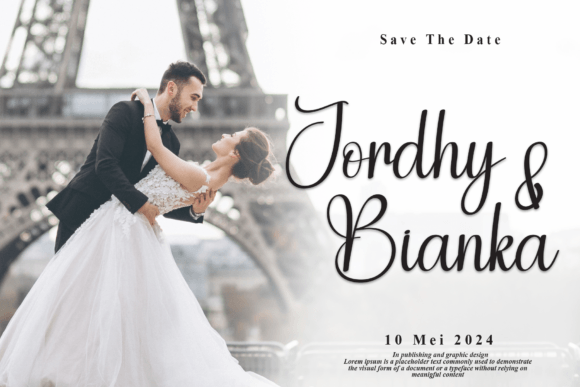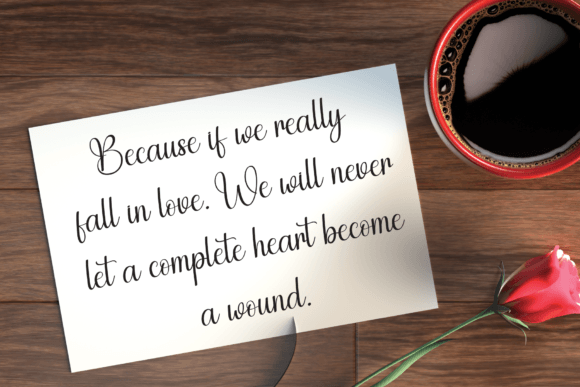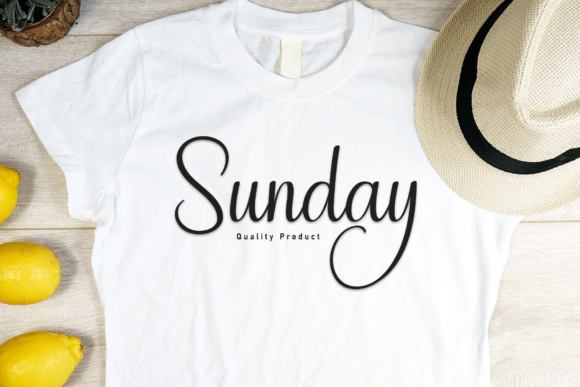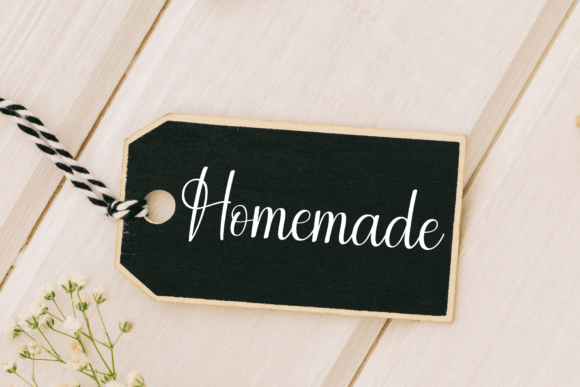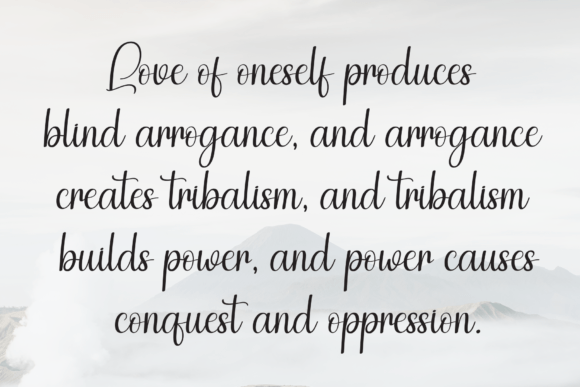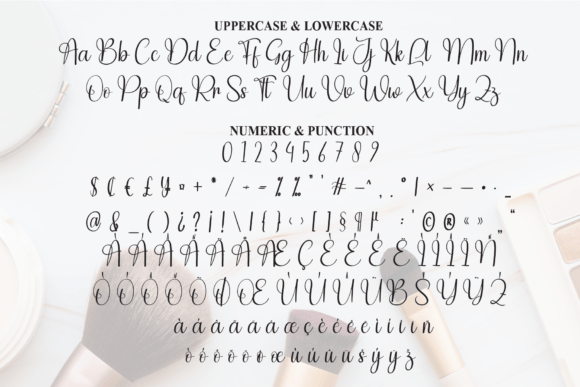
Introducing Brush Beauty Font: The Ultimate Companion for Whimsical Creativity
Are you a designer, crafter, or creative enthusiast looking for a font that can add a touch of warmth and playfulness to your projects? Look no further than Brush Beauty Font, a delightful handwritten font that’s perfect for a wide range of applications. From quaint wedding invitations to lively cards, this font is designed to captivate hearts with its crisp, playful twist.
The Charm of Brush Beauty Font
Brush Beauty Font is more than just a font – it’s a stylish companion that infuses joy into every word. Its unique, whimsical design makes it perfect for projects that require a personal touch. Whether you’re creating wedding invitations, birthday cards, or social media graphics, this font is sure to add a dash of charm and personality to your designs.
Key Features of Brush Beauty Font
- Warm and Delightful Design: Brush Beauty Font features a warm and delightful design that’s perfect for creating inviting and engaging projects.
- Handwritten Style: This font boasts a beautiful handwritten style that’s perfect for adding a personal touch to your designs.
- Playful Twist: With its crisp, playful twist, Brush Beauty Font is ideal for projects that require a touch of whimsy and fun.
- Versatile: This font is perfect for a wide range of applications, from wedding invitations and cards to social media graphics and more.
Brush Beauty Font is a perfect match for designers and crafters who want to add a touch of personality to their projects. Whether you’re creating digital or print materials, this font is sure to help you stand out from the crowd. Its unique design makes it perfect for:
- Wedding Invitations: Add a touch of romance and whimsy to your wedding invitations with Brush Beauty Font.
- Cards and Stationery: Create beautiful, one-of-a-kind cards and stationery with this delightful font.
- Social Media Graphics: Add a dash of personality to your social media graphics with Brush Beauty Font.
- Branding and Packaging: Use this font to create unique and eye-catching branding and packaging materials.
Why Choose Brush Beauty Font?
With so many fonts available, why choose Brush Beauty Font? Here are just a few reasons why this font stands out:
- Unique Design: Brush Beauty Font features a unique, whimsical design that’s sure to set your projects apart.
- Easy to Read: Despite its playful design, Brush Beauty Font is easy to read and understand, making it perfect for a wide range of applications.
- High-Quality: This font is designed to deliver high-quality results, whether you’re working on digital or print projects.
Get Ready to Unleash Your Creativity
In conclusion, Brush Beauty Font is a delightful handwritten font that’s perfect for designers, crafters, and creative enthusiasts who want to add a touch of warmth and playfulness to their projects. With its unique design, playful twist, and versatility, this font is sure to captivate hearts and inspire creativity. So why wait? Download Brush Beauty Font today and start creating something truly special!